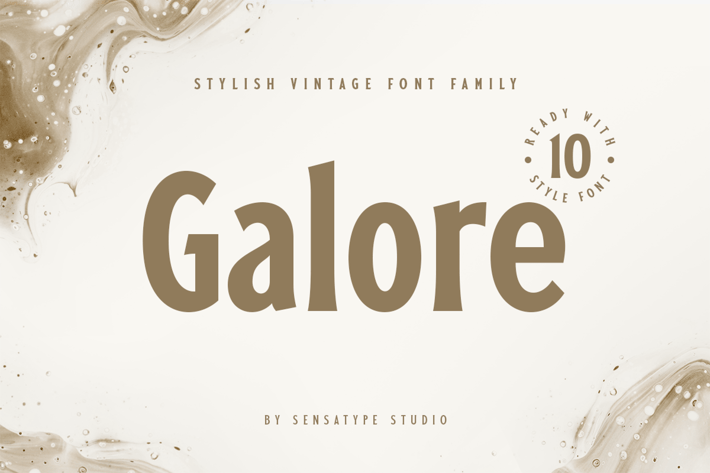
Galore - Stylish Vintage Font Family
Galore Stylish Vintage Font Family is a well-balanced contemporary font with a Modern, unique, and versatile heritage vintage font that you can combine to get any variations and unique shapes easily just in seconds. It is a serif font with several weights that perfect for branding projects, logo, wedding design, social media post, advertisement, product packaging, product design, label, photography, watermark, invitation, stationery, and any projects, it makes with a high level of legibility.